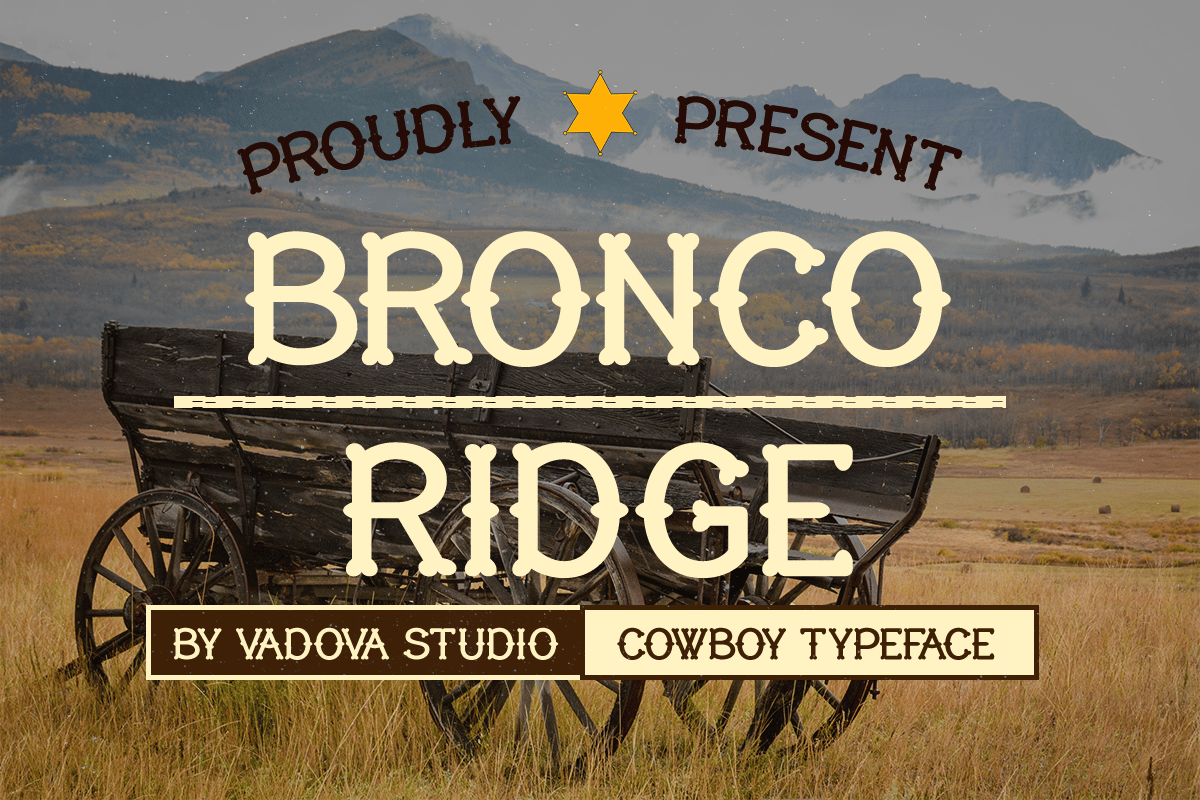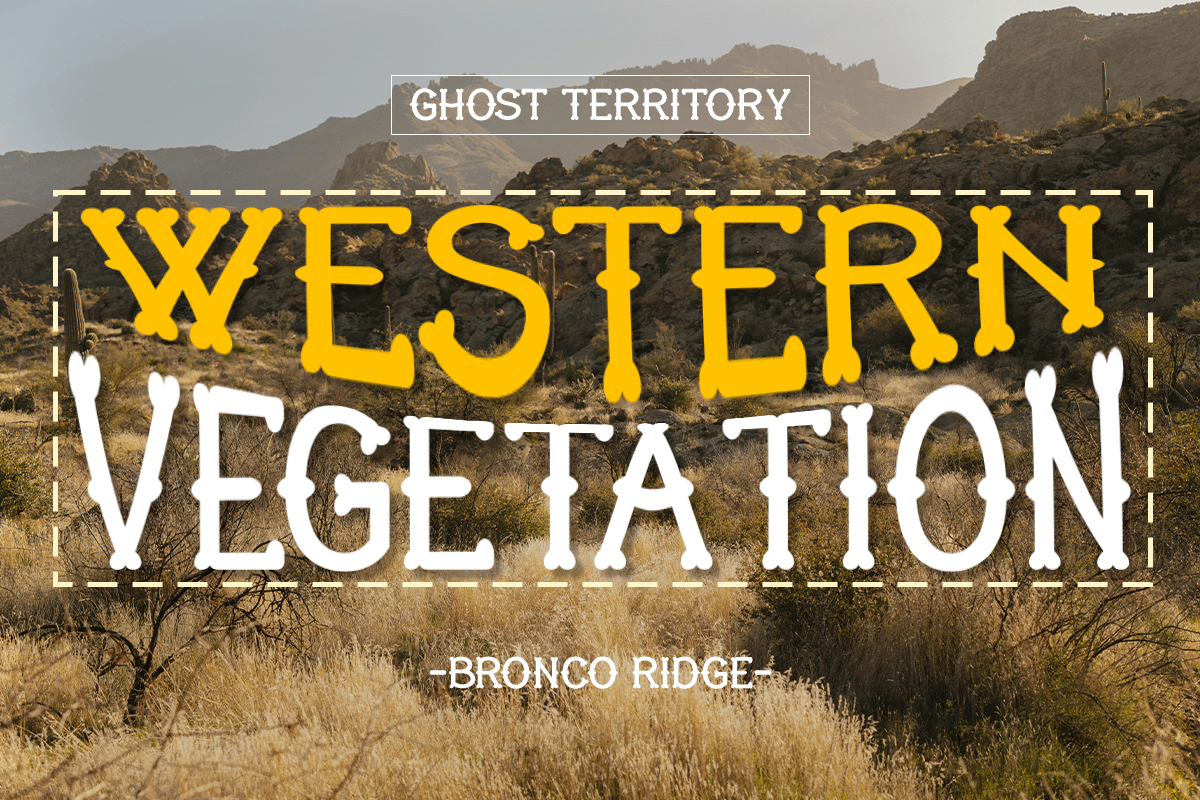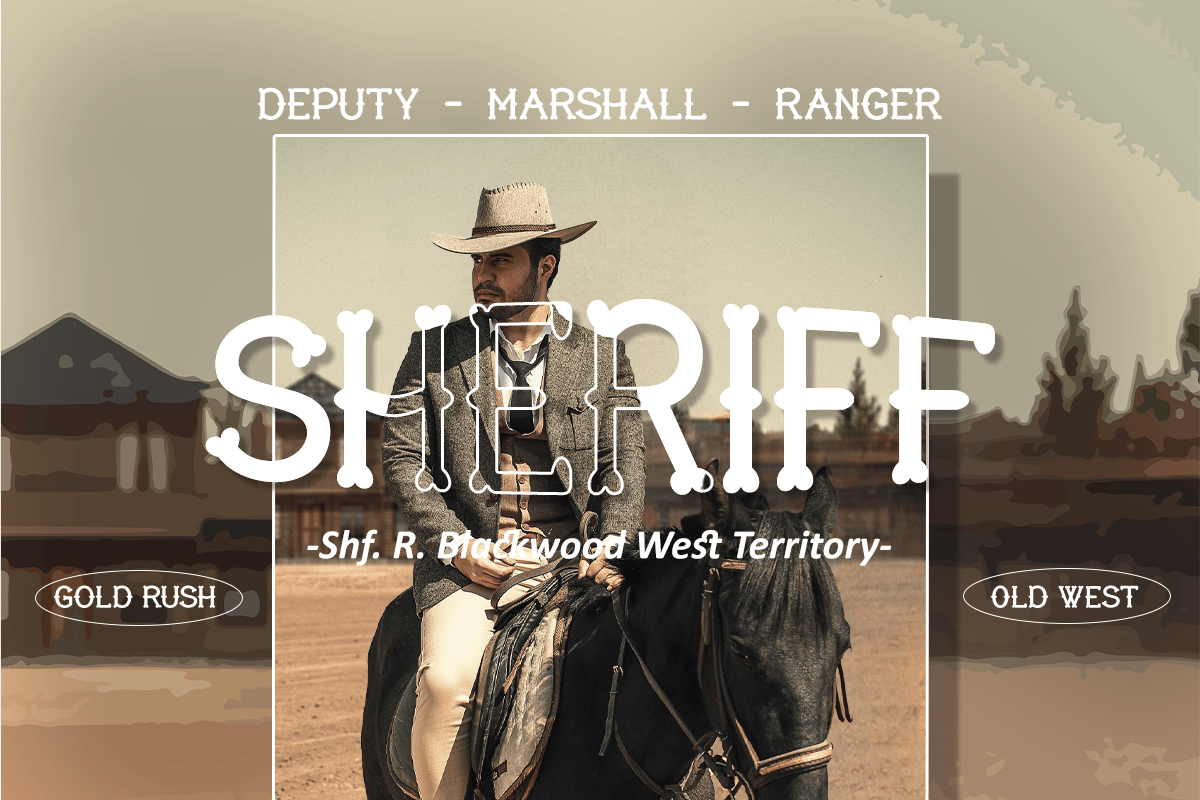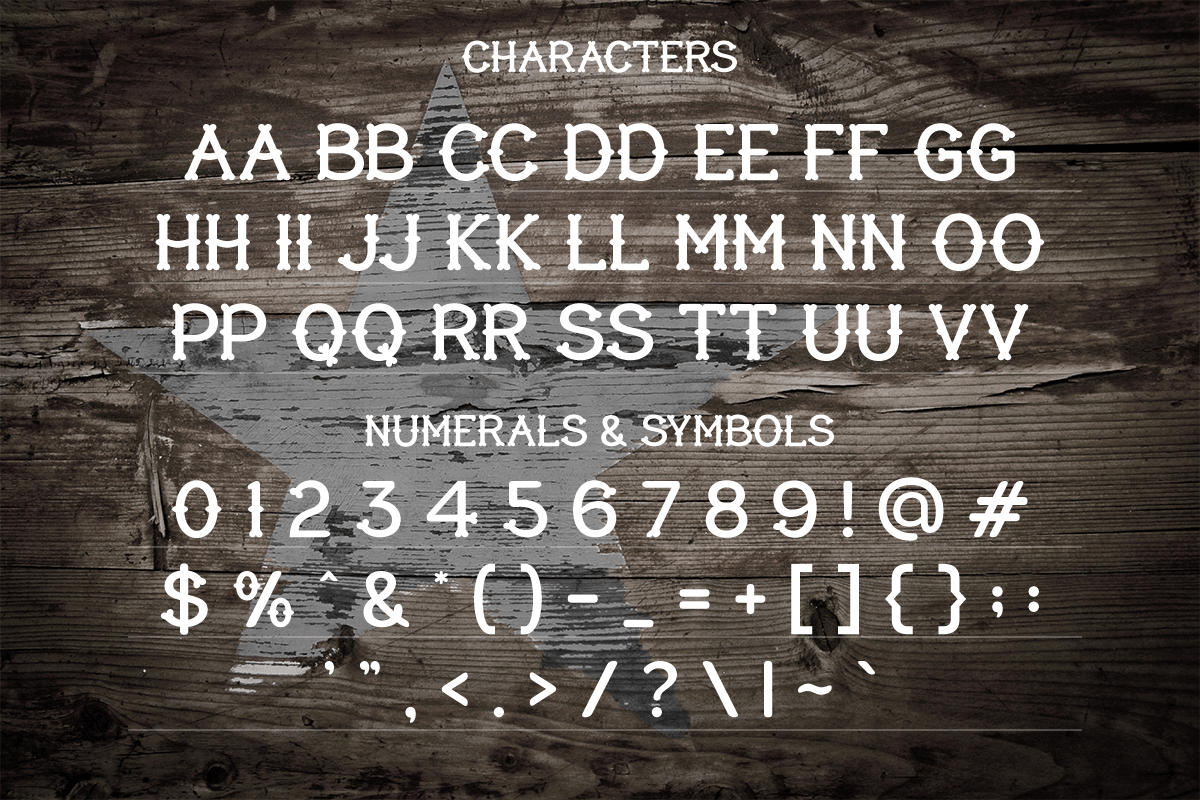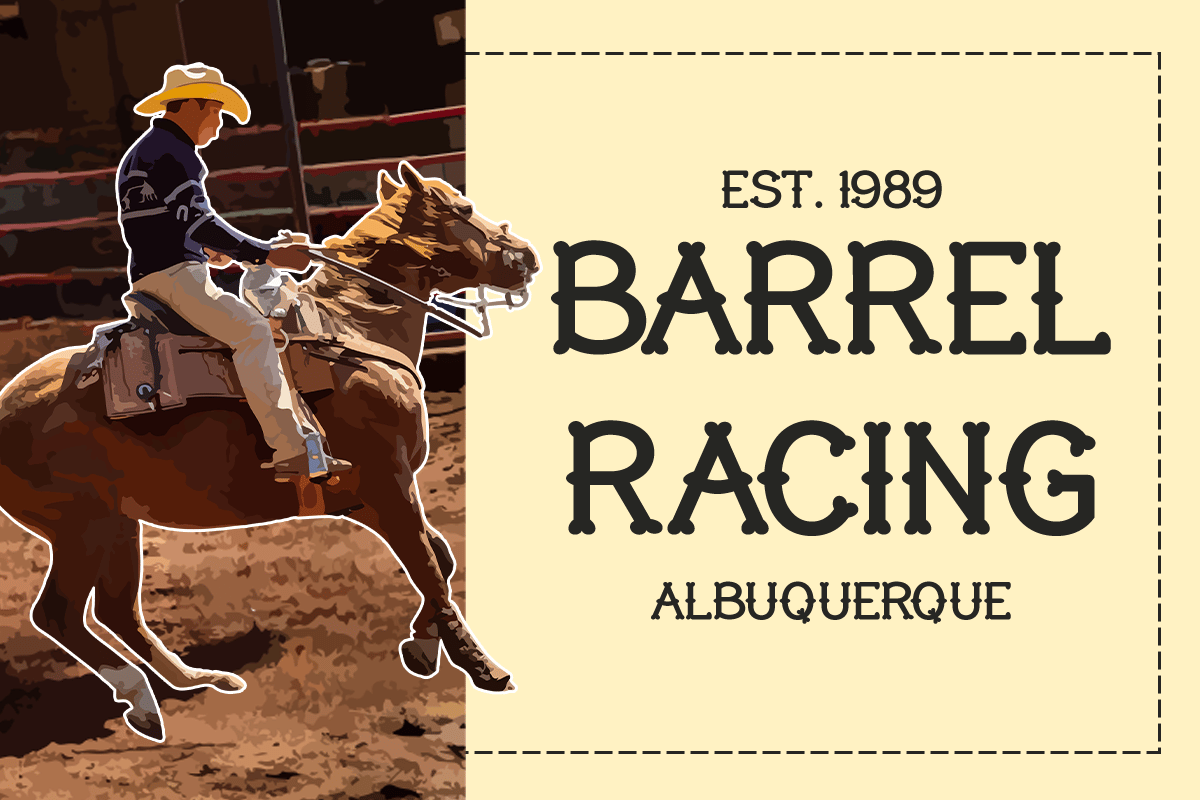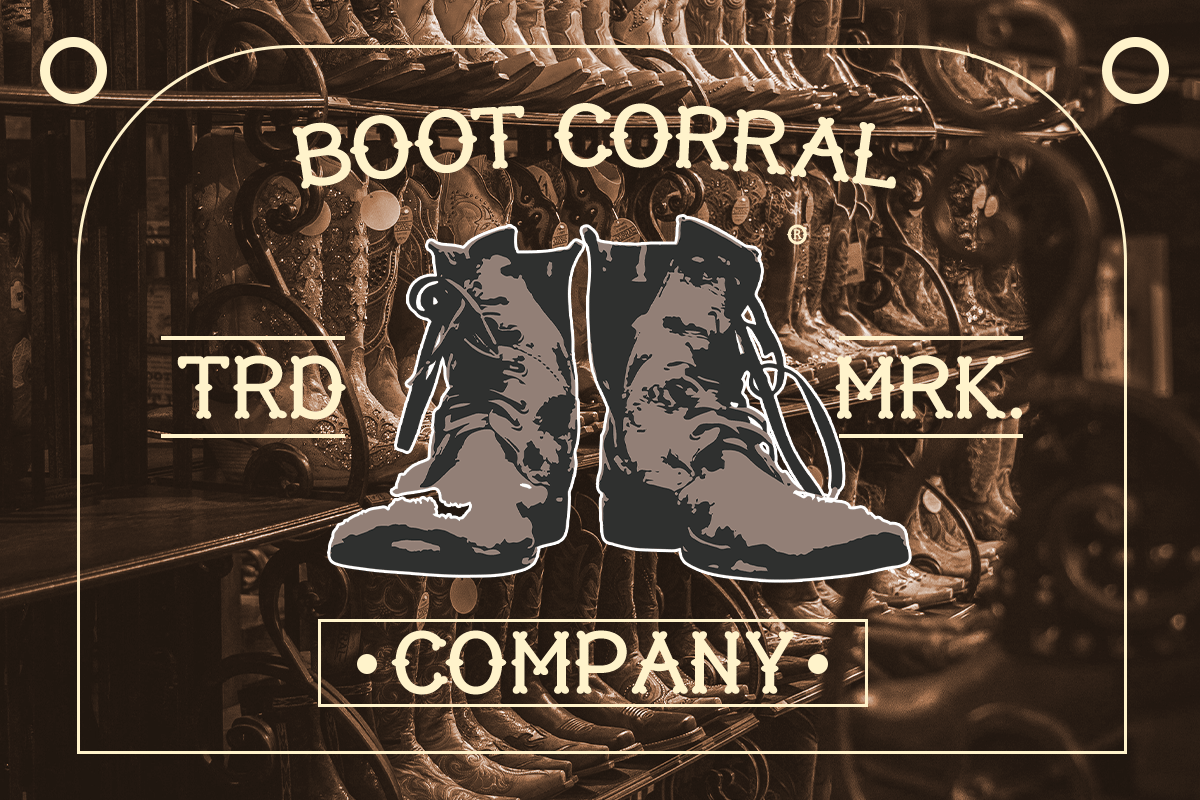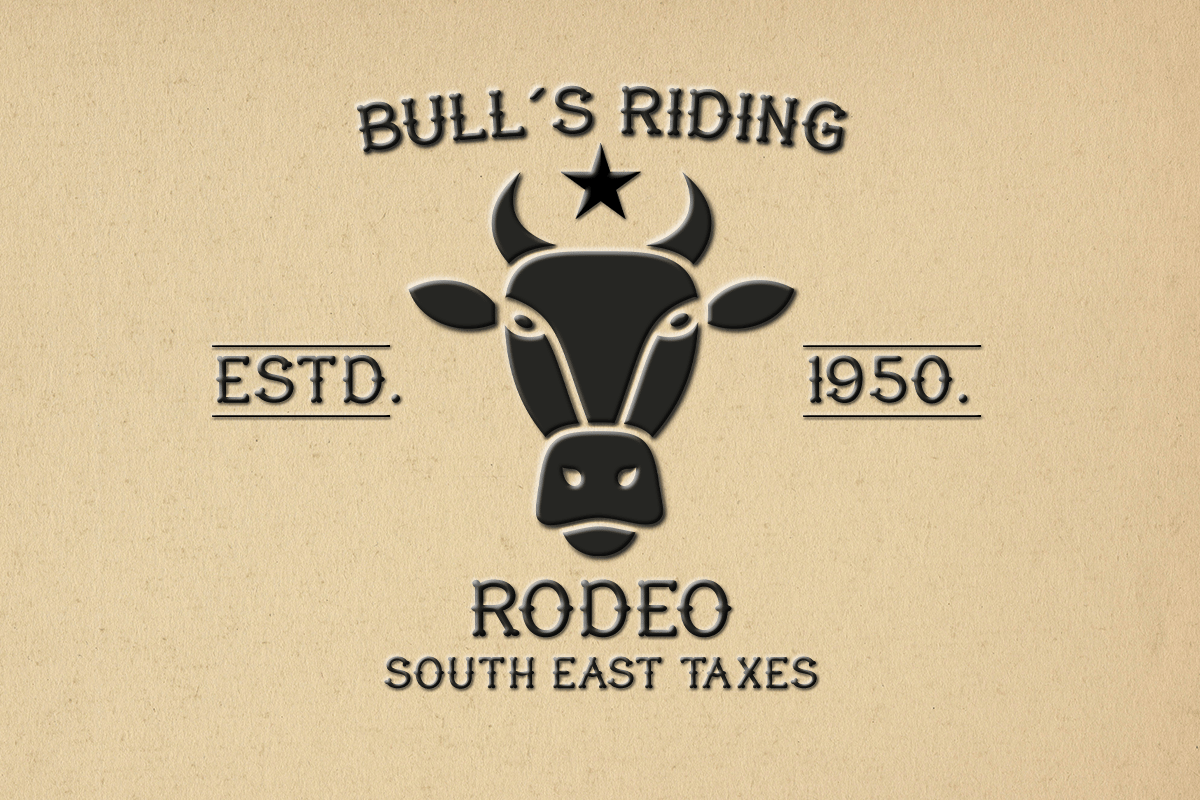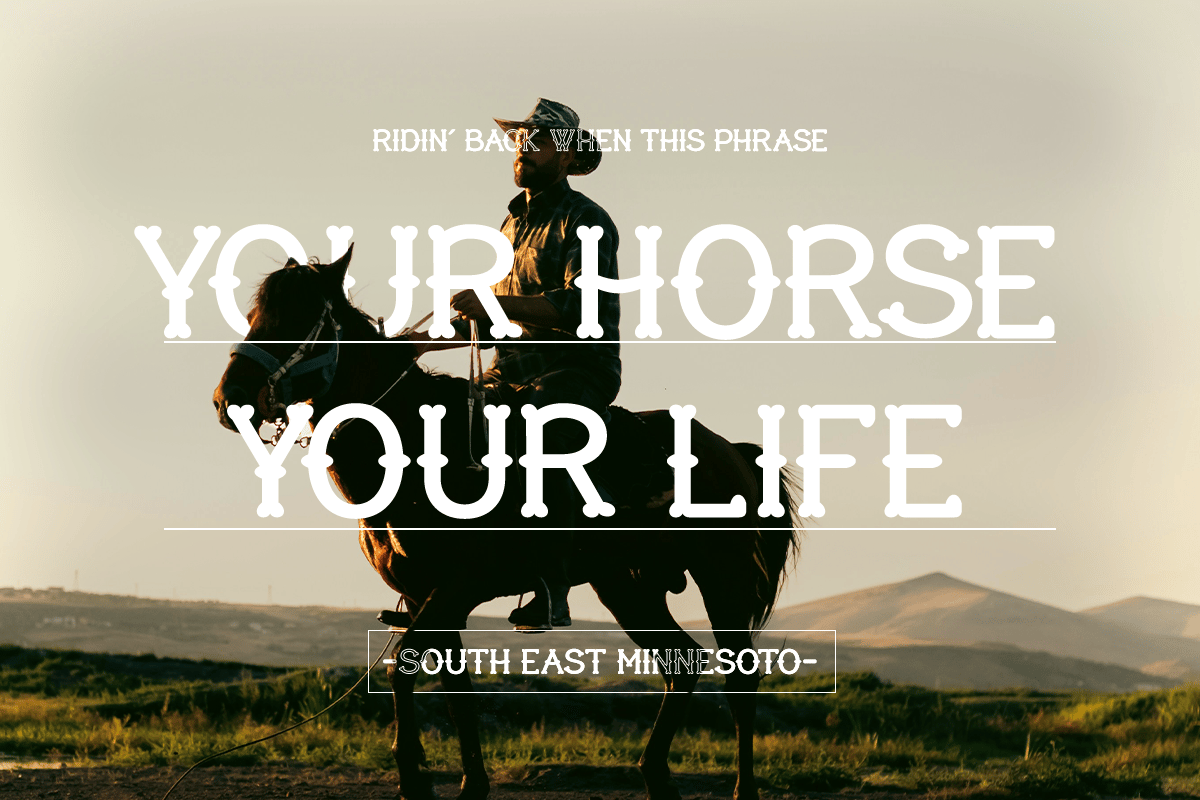
Bronco Ridge Cowboy Font
Bronco Ridge is a cowboy-style typeface inspired by the rugged charm of the Wild West, featuring bold, rustic letterforms that make it perfect for western-themed branding, vintage posters, saloon signs, rodeo flyers, and rustic apparel designs.